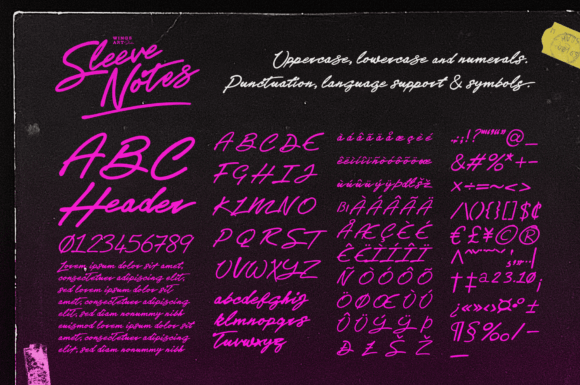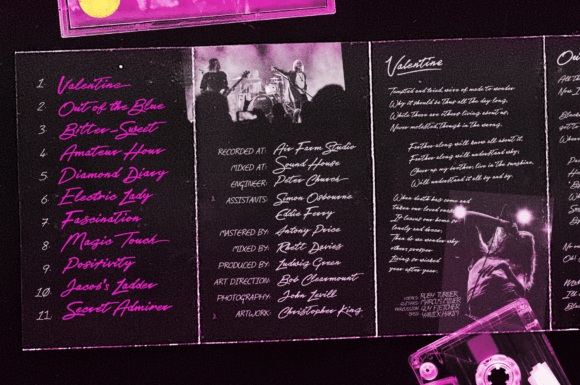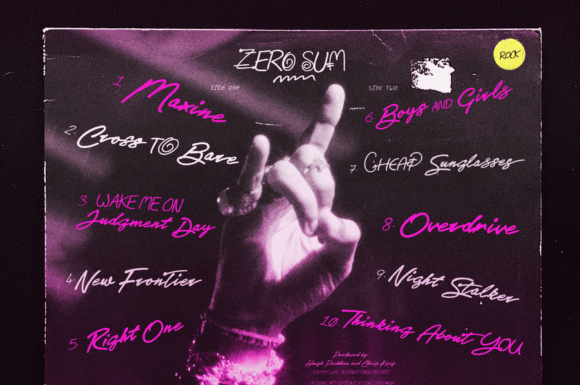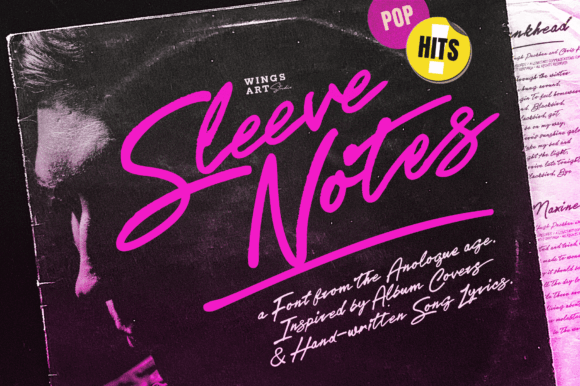
Introduction to Sleeve Notes Font
Sleeve Notes is an experimental script font and all-caps pair with a loose hand-written style that explores the golden age of record stores, vinyl albums, cassettes, and CDs.
This font embraces its subtle ink blotches and rough edges Keep in mind that the font is PUA encoded, meaning that you can access all delightful glyphs and swashes effortlessly.